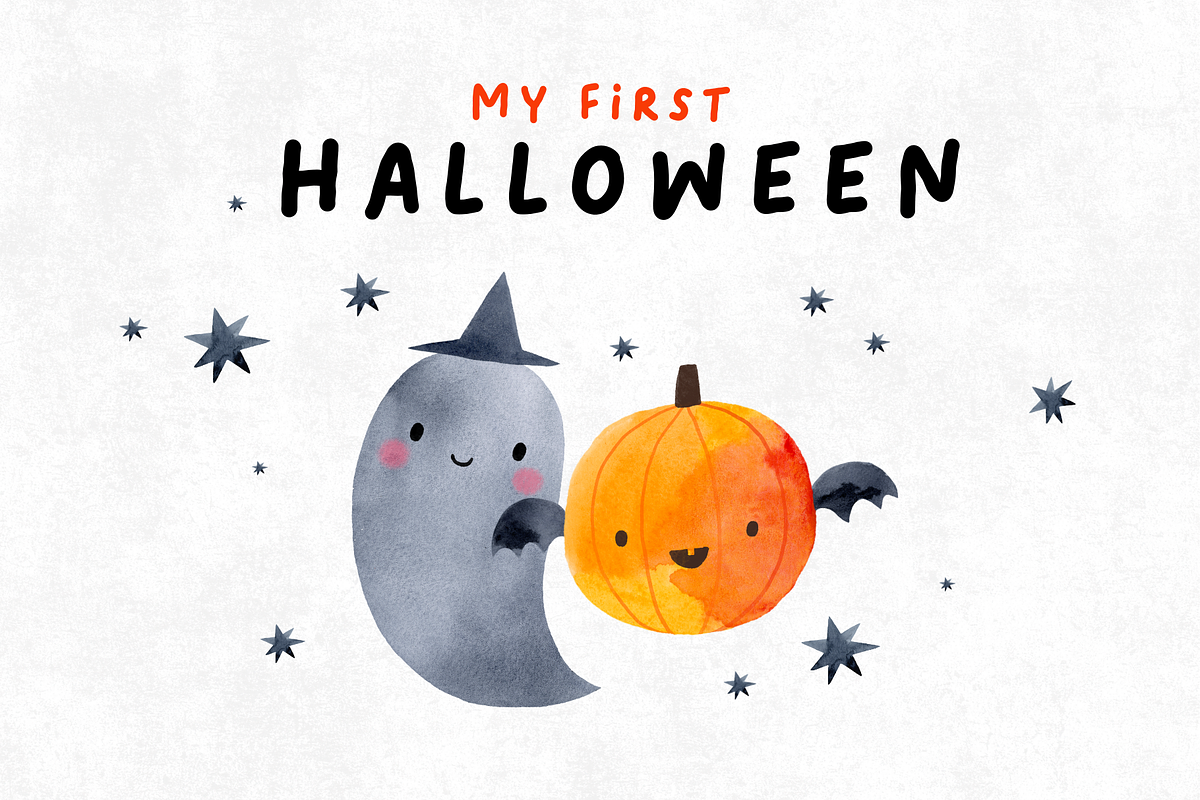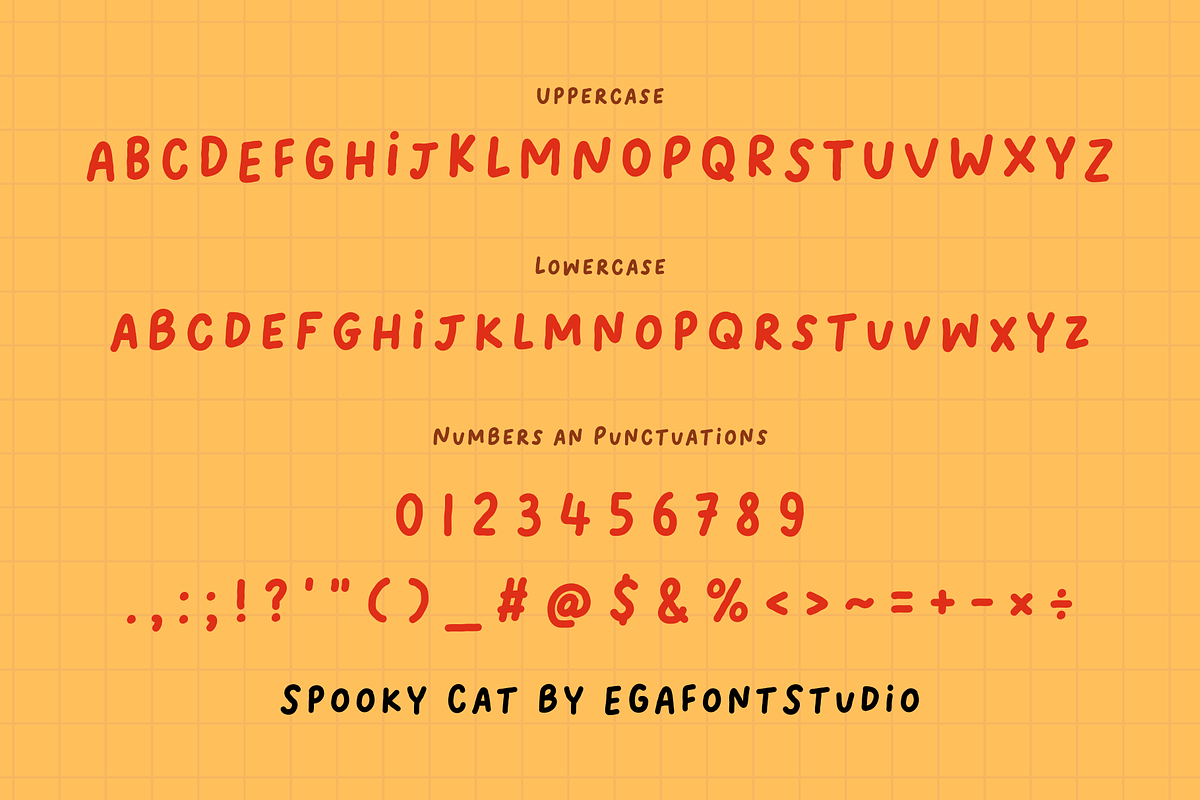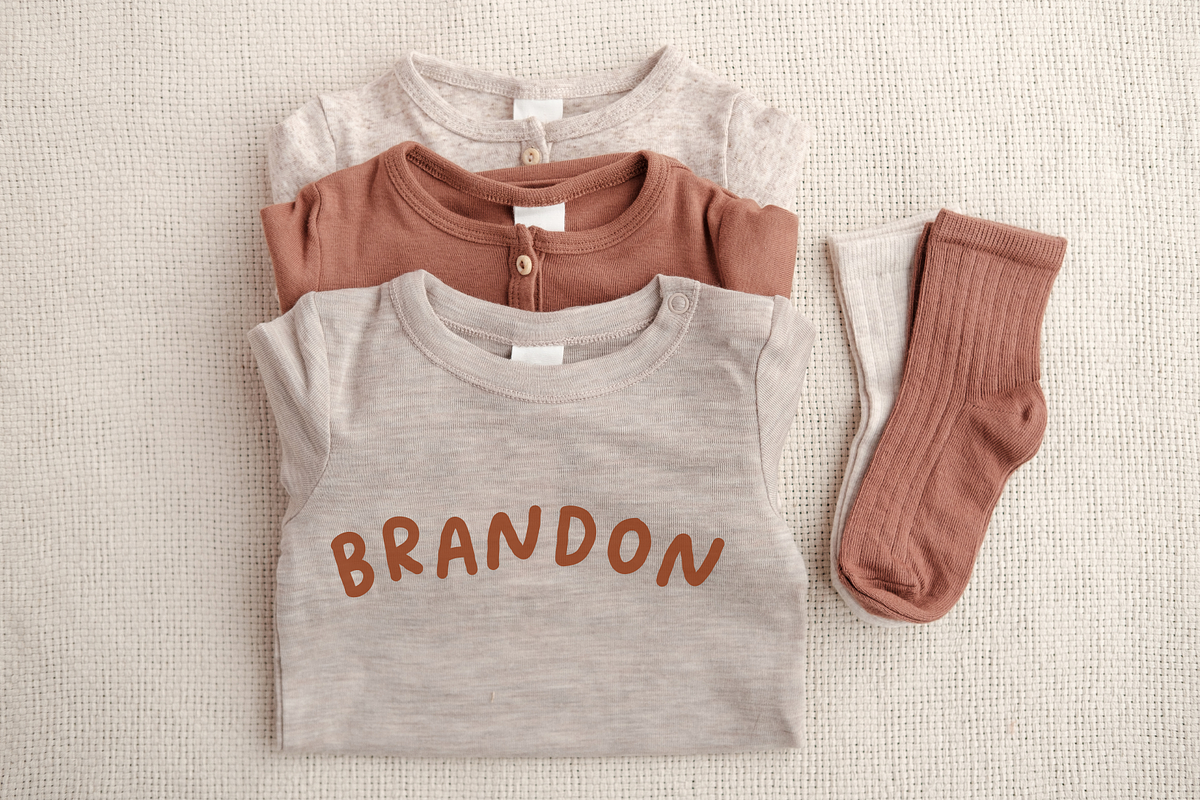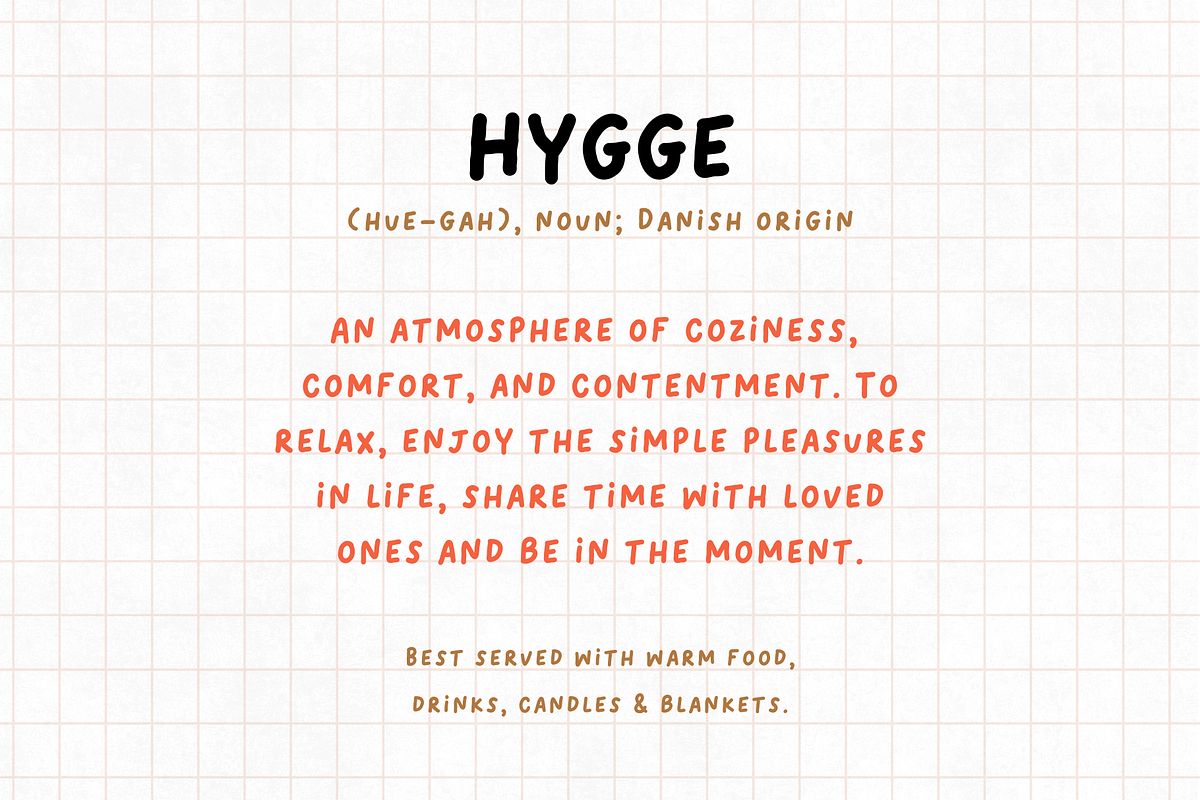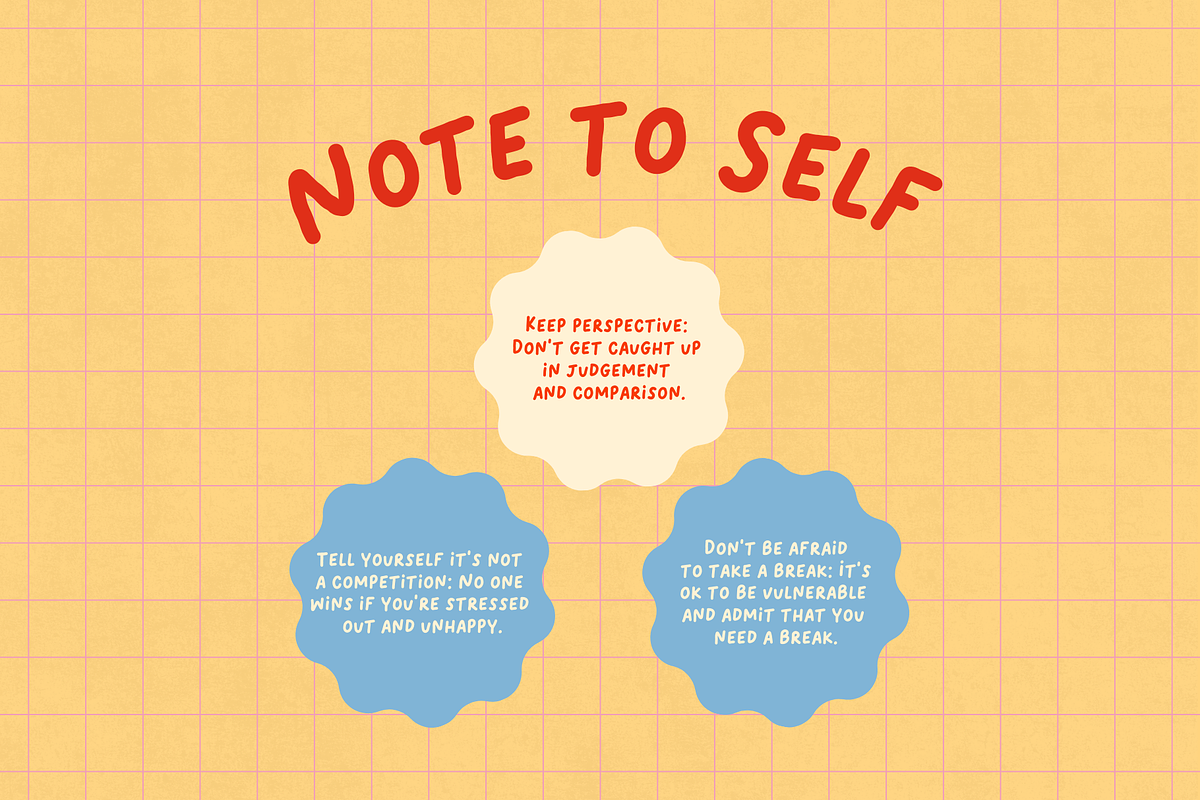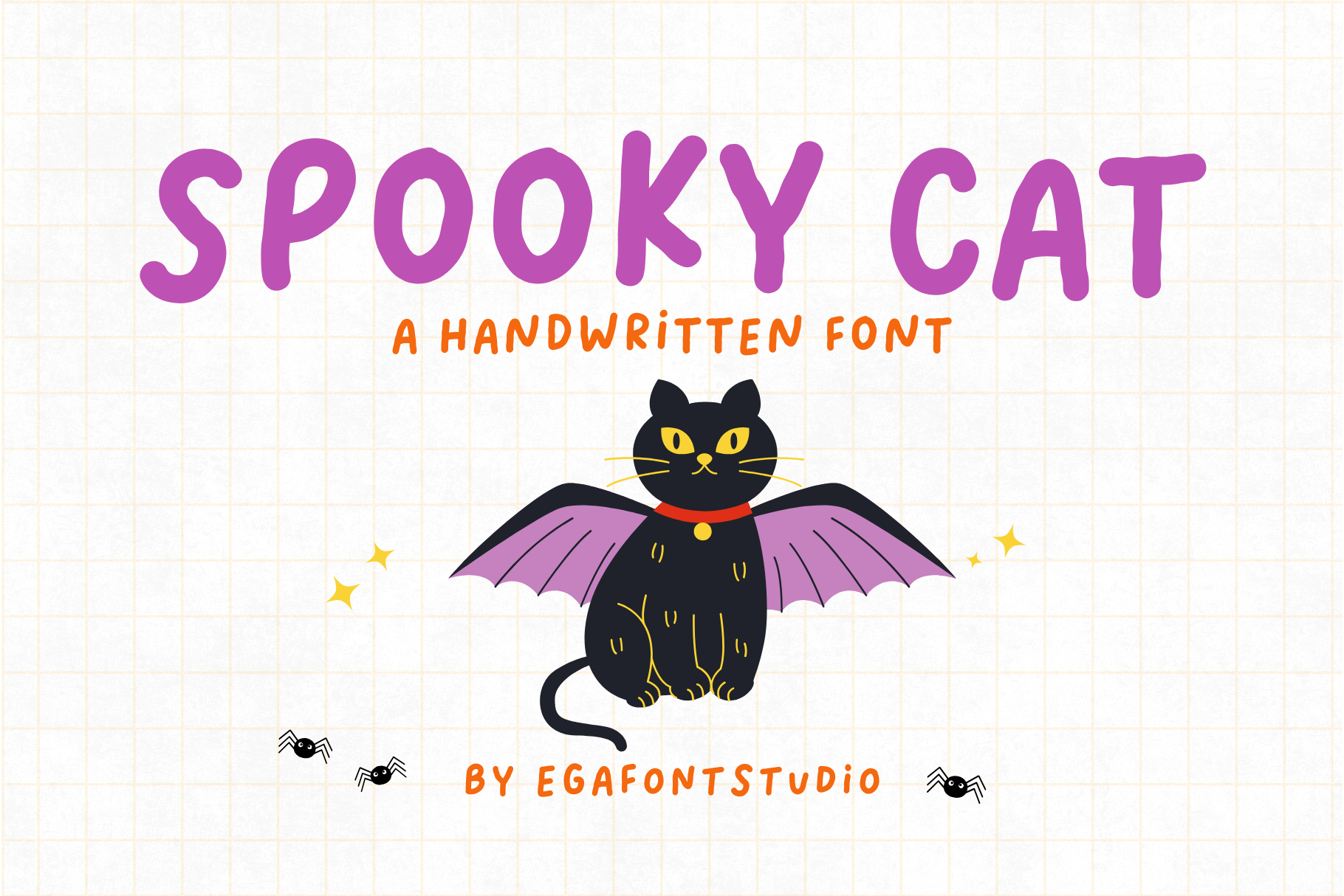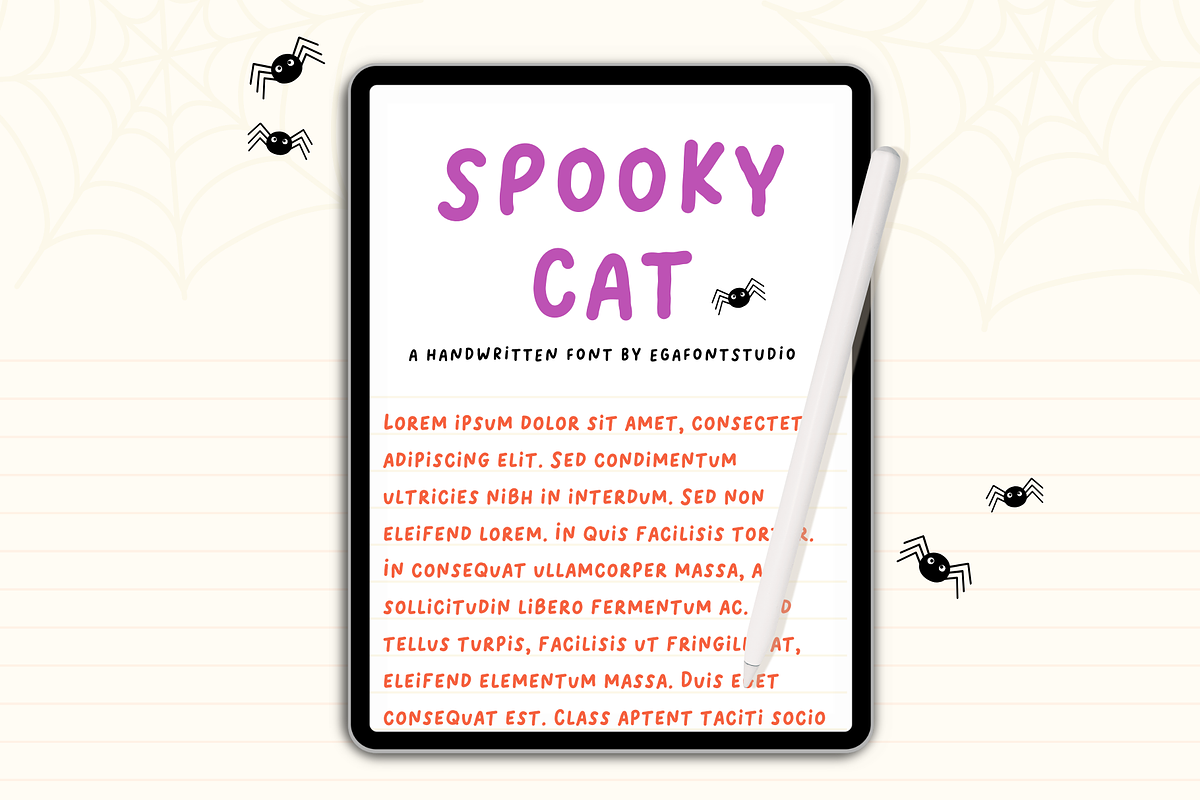
Spooky Cat | Handwritten Font
Embrace the whimsical charm of "Spooky Cat," a delightful handwritten font that captures the essence of playful spookiness. Perfect for adding a touch of quirky character to your designs, this font exudes a unique blend of spooky and whimsy, making it ideal for Halloween-themed projects, children's book illustrations, greeting cards, and more.